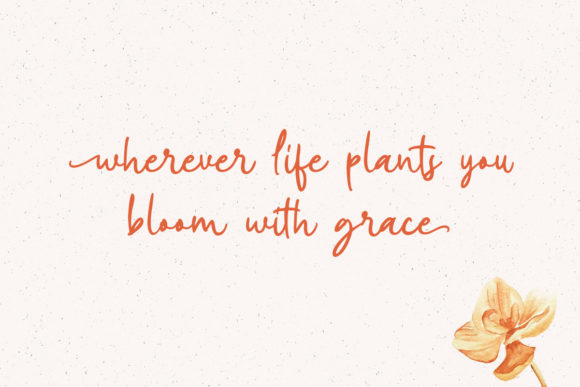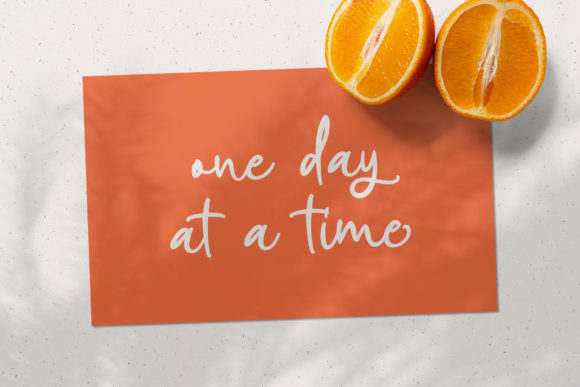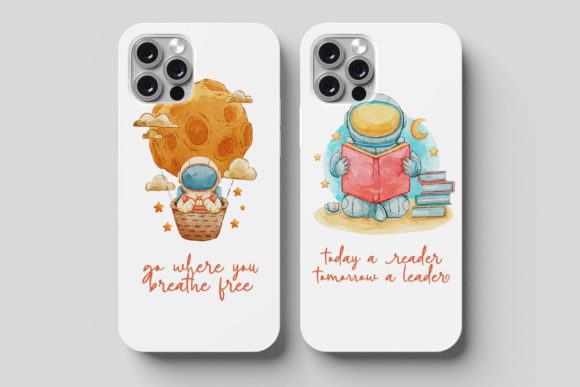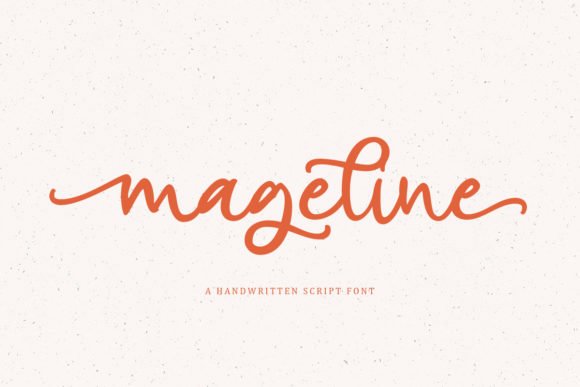
Introduction to Mageline Font
Mageline is a beautiful, well balanced and vintage styled script font.
It is defined by smooth curves and is perfect for fashion branding or editorial designs Add it confidently to your projects, and you will love the results.